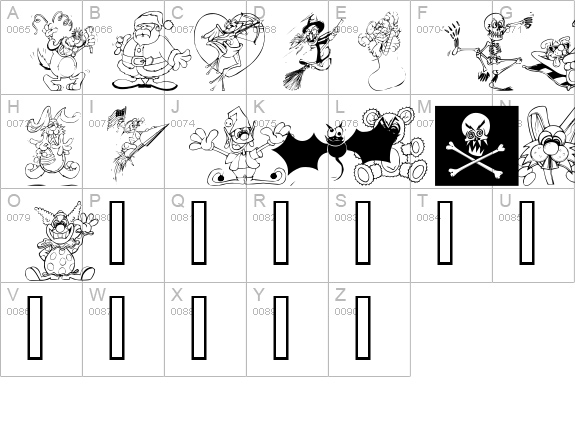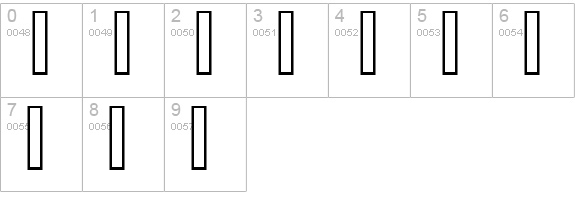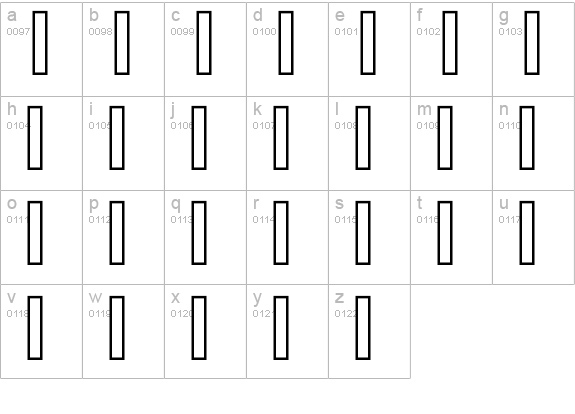
LM Holiday Toons Font Details
LM Holiday Toons font is a whimsical and playful typeface perfect for adding a touch of fun to your holiday designs. This font features charming holiday-themed characters and symbols that will bring joy to any project. Whether you're creating greeting cards, invitations, or decorations, LM Holiday Toons is sure to delight your audience with its cheerful and festive style. Best of all, LM Holiday Toons font is completely free to download at FontsMarket.com. This means you can easily add a touch of holiday magic to your designs without any cost. Don't miss out on this charming font that will make your holiday creations stand out and spread joy to all who see them. Download LM Holiday Toons font today and let your creativity shine!